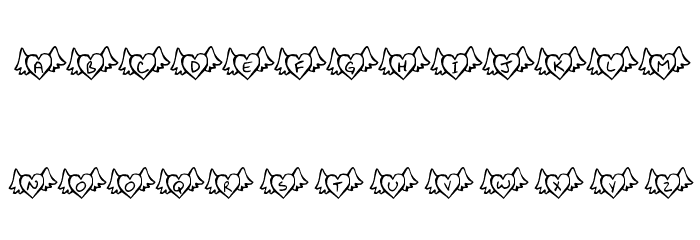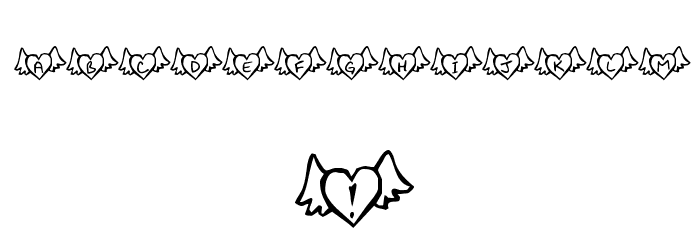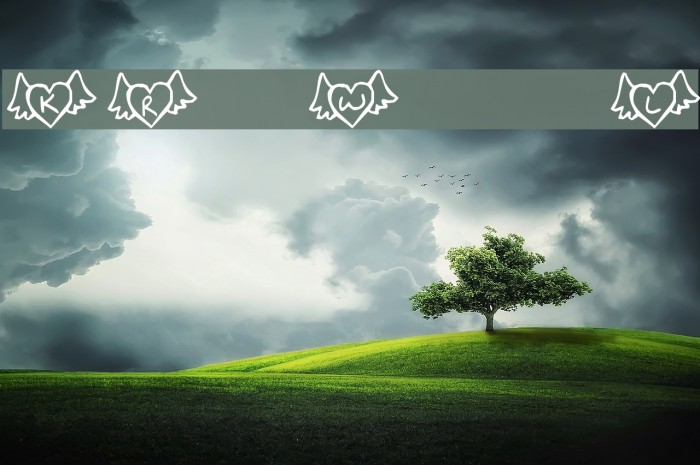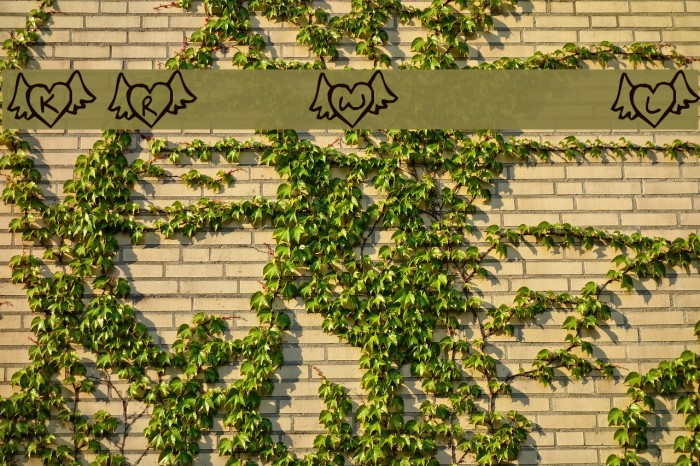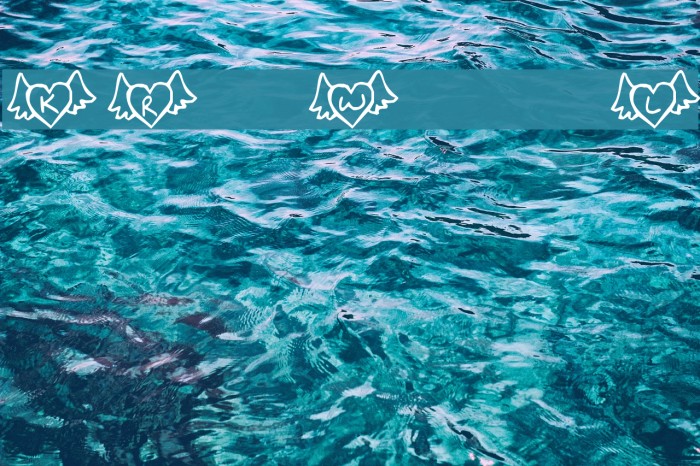
KR Wings of Love Font
This decorative font features a unique design where each character is integrated into a heart shape with wings, creating a whimsical and romantic aesthetic. The letters are stylized within the heart, giving a sense of unity and flow. The wings add a playful and airy touch, making the font ideal for themes related to love, fantasy, or flight. The overall appearance is both charming and distinctive, with a hand-drawn feel that adds a personal touch. The font is consistent in style across all characters, maintaining the heart and wings motif throughout.
A whimsical font with letters inside heart shapes with wings, perfect for romantic themes.
- Proposed Projects: Ideal for wedding invitations, Valentine's Day cards, fantasy-themed projects, and decorative headings.
- Use Case: Logos, Headlines, Invitations